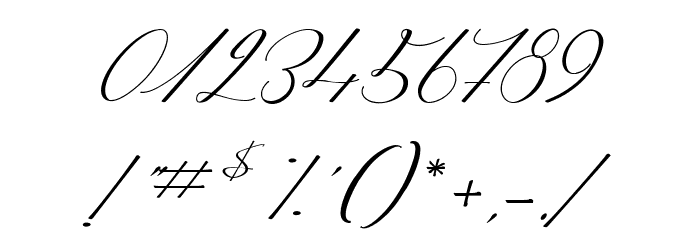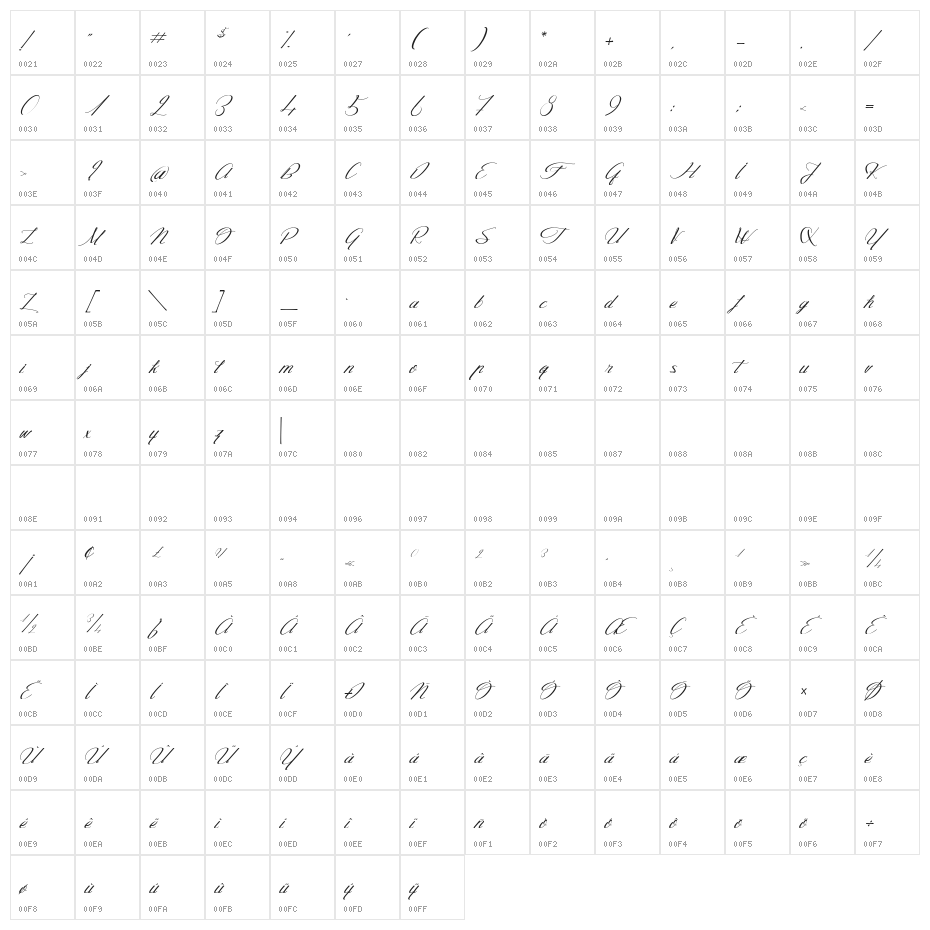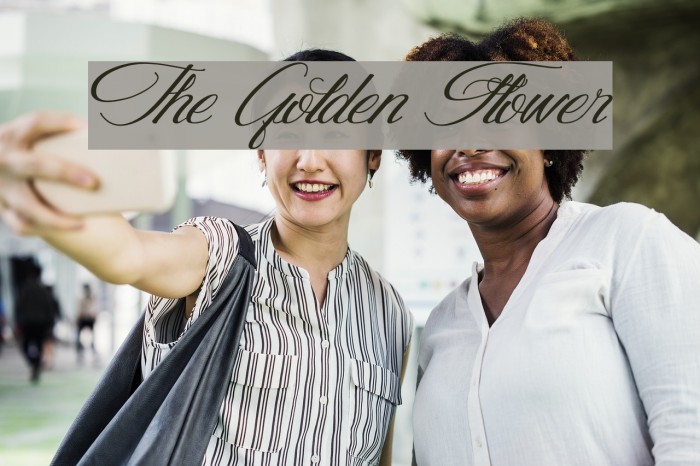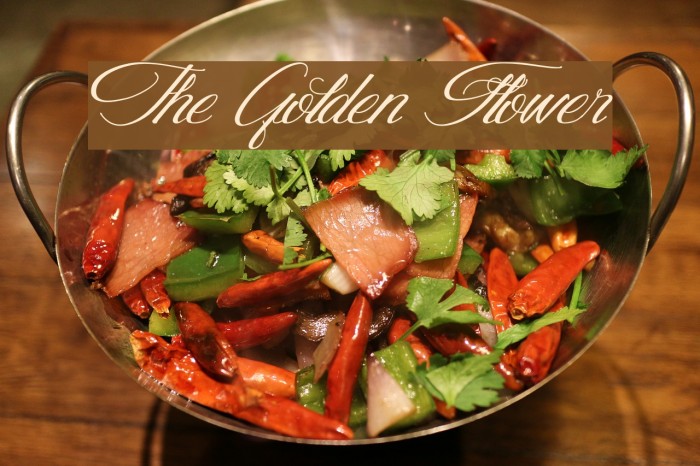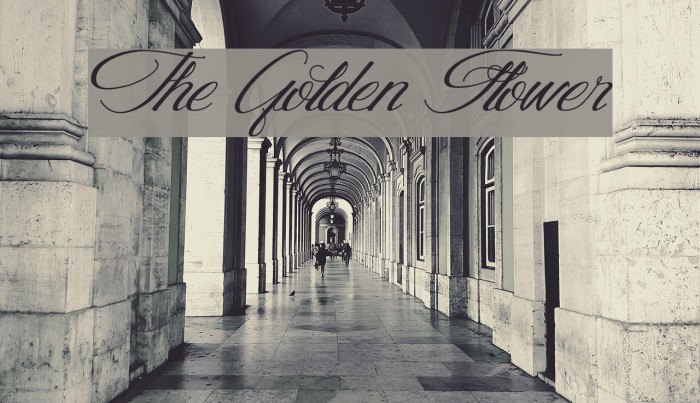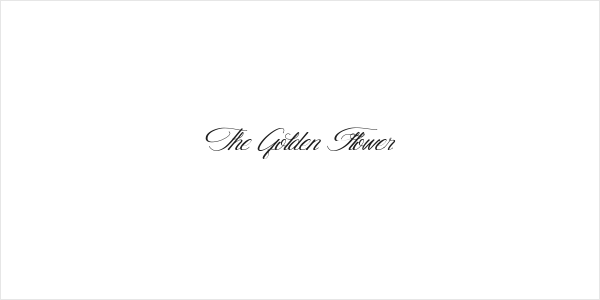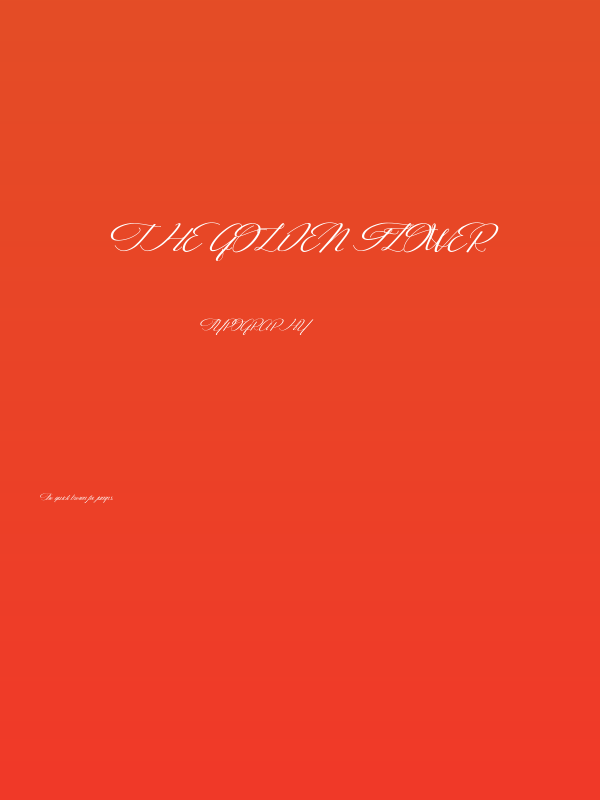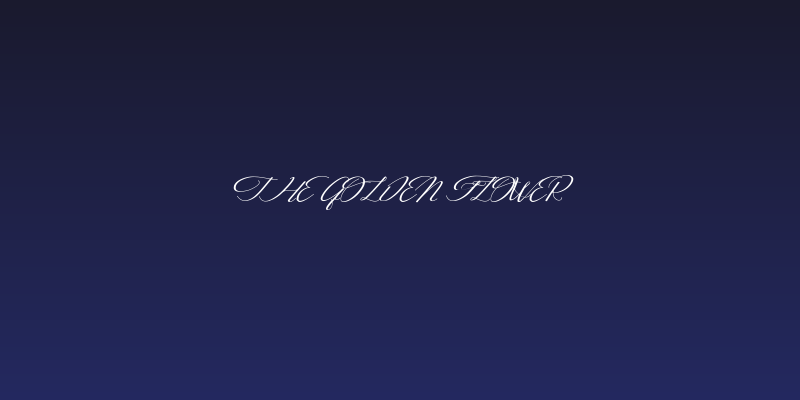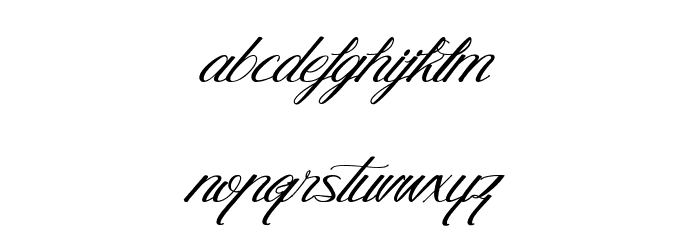
The Golden Flower Font
The Golden Flower Description
This elegant script font features a flowing, cursive style with high contrast between thick and thin strokes. The characters are intricately designed with graceful curves and loops, giving it a sophisticated and artistic appearance. The uppercase letters are particularly ornate, with sweeping lines that extend beyond the baseline and cap height, creating a sense of movement and fluidity. The lowercase letters maintain a consistent style, complementing the uppercase with their own subtle flourishes. Numbers and special characters are crafted with the same attention to detail, ensuring a cohesive look across all elements. This font exudes a sense of luxury and refinement, making it ideal for formal and decorative applications.
| Proposed Projects | Wedding invitations, luxury branding, elegant packaging, formal event programs, decorative signage. |